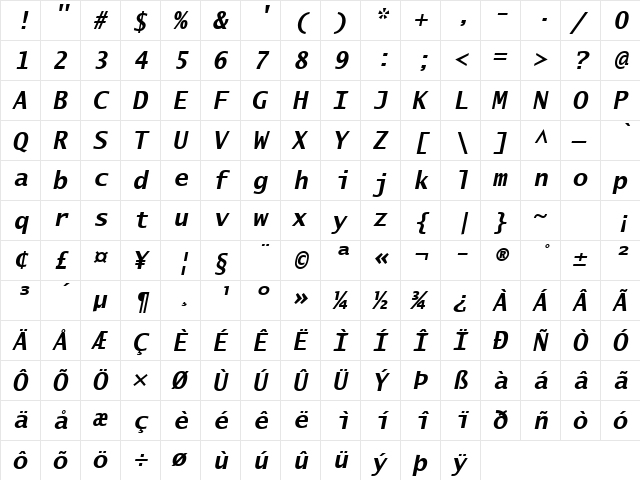
Lucida Sans Typewriter Bold Oblique Font Preview
Design Context for Lucida Sans Typewriter Typeface
Lucida Sans Typewriter brings the precise, column-aligned rhythm of monospaced typography to designs that value technical clarity and systematic order. Its italic angle brings a sense of urgency and motion to the letterforms. The heavy weight commands attention and anchors typographic hierarchies.
Pro Tip: Pair Lucida Sans Typewriter with a proportional sans for UI contexts where code-style labels and regular body copy need to coexist.